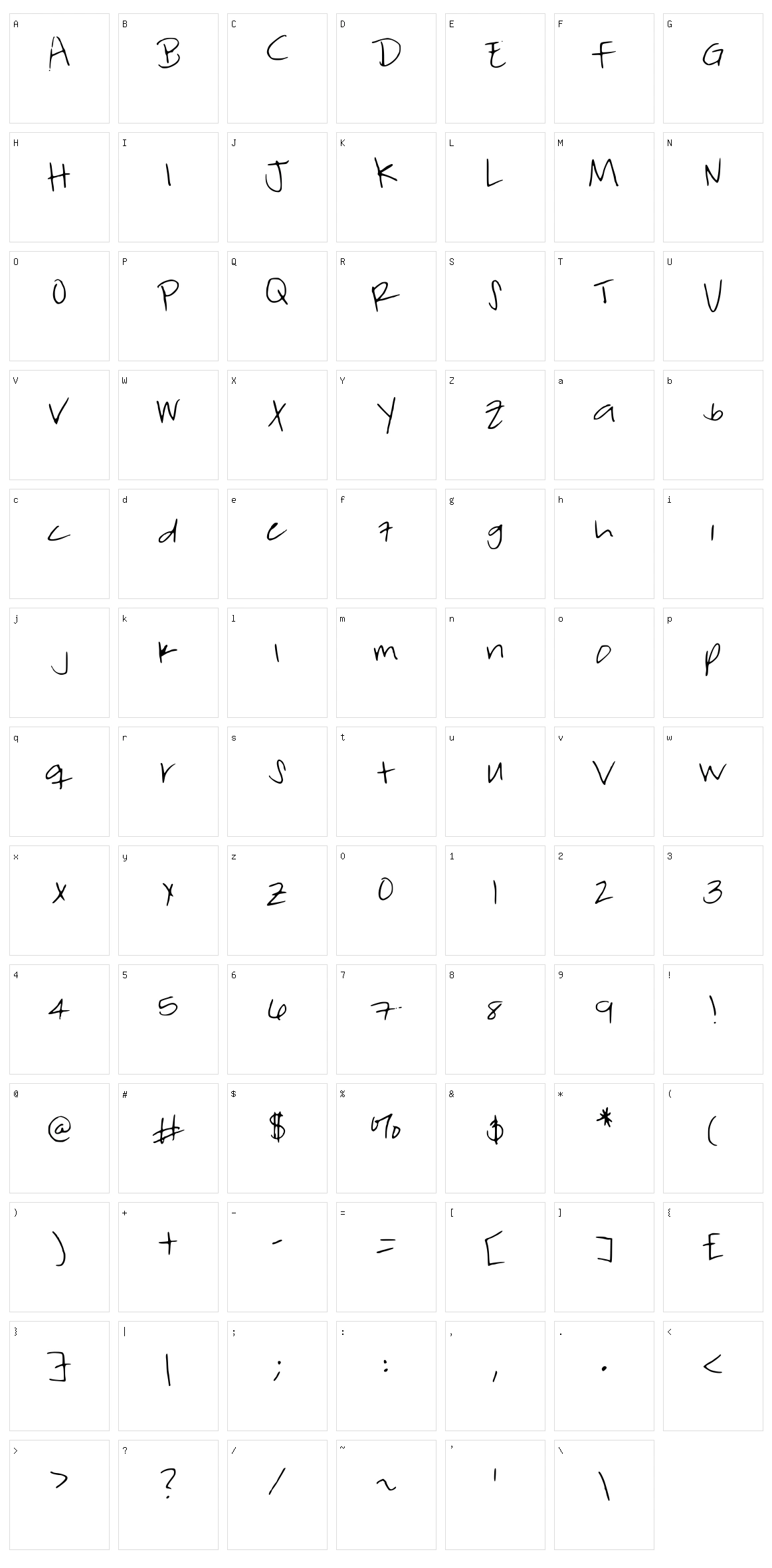
The free font Forgetful Friday is carefully designed by Freya J., showcasing a thoughtful balance of creativity and usability and falls under the Script font style. When you download the ZIP file, it contains only 19.56 KB of font files, making it lightweight and quick to download. Please review the license details below to understand permitted usage and distribution rights. If license information is not available, we recommend using this font for personal projects only or contacting the author directly for commercial usage permissions.